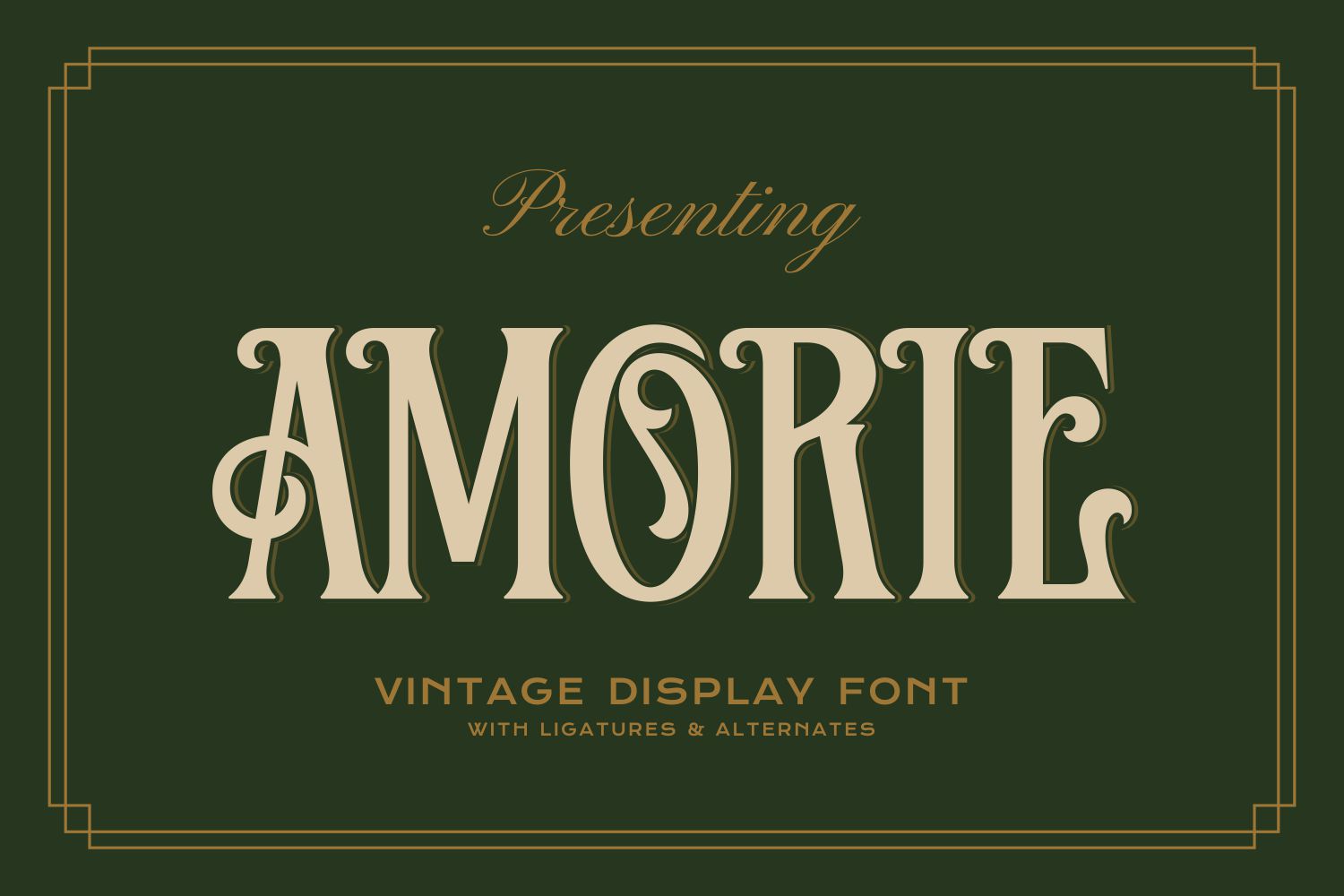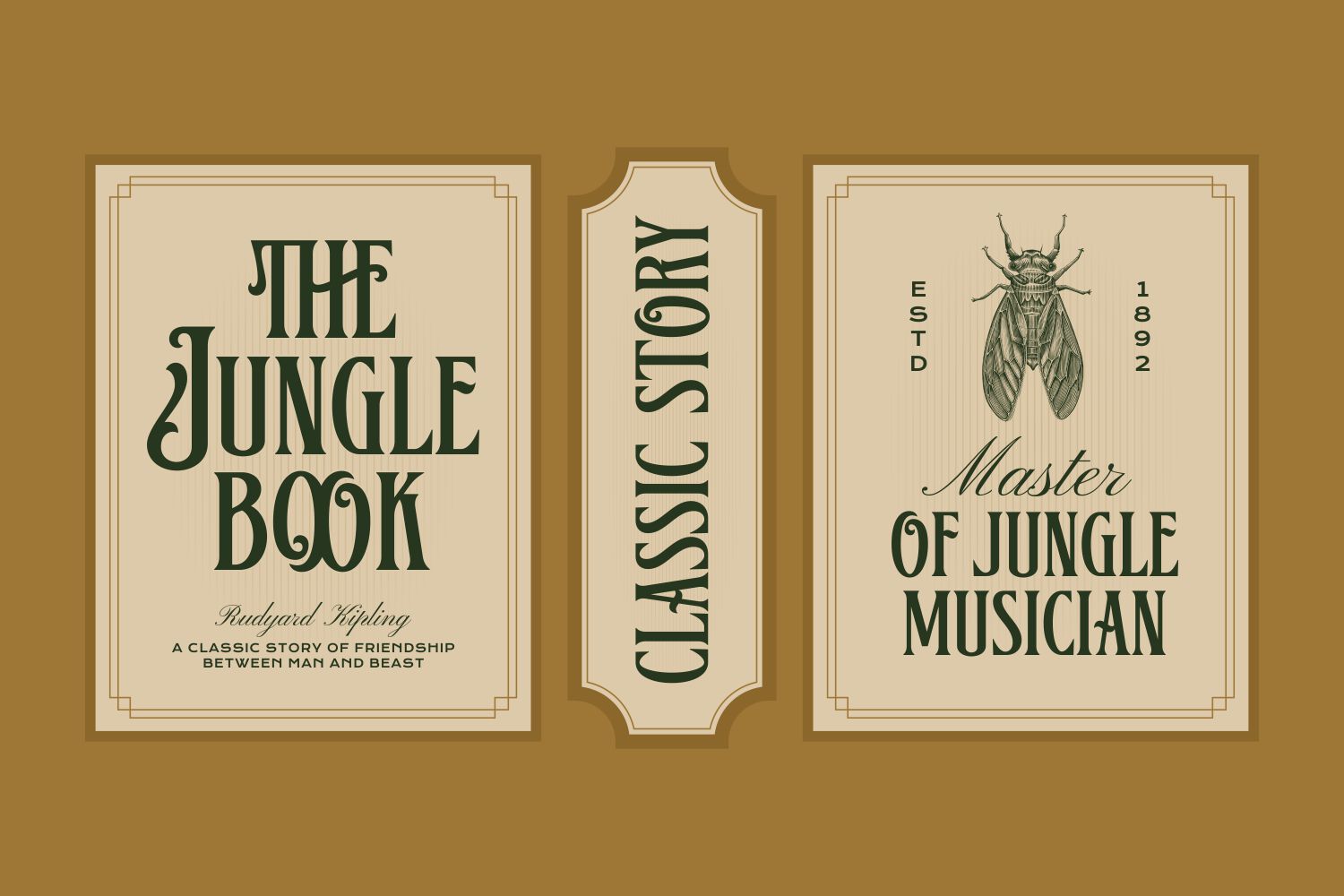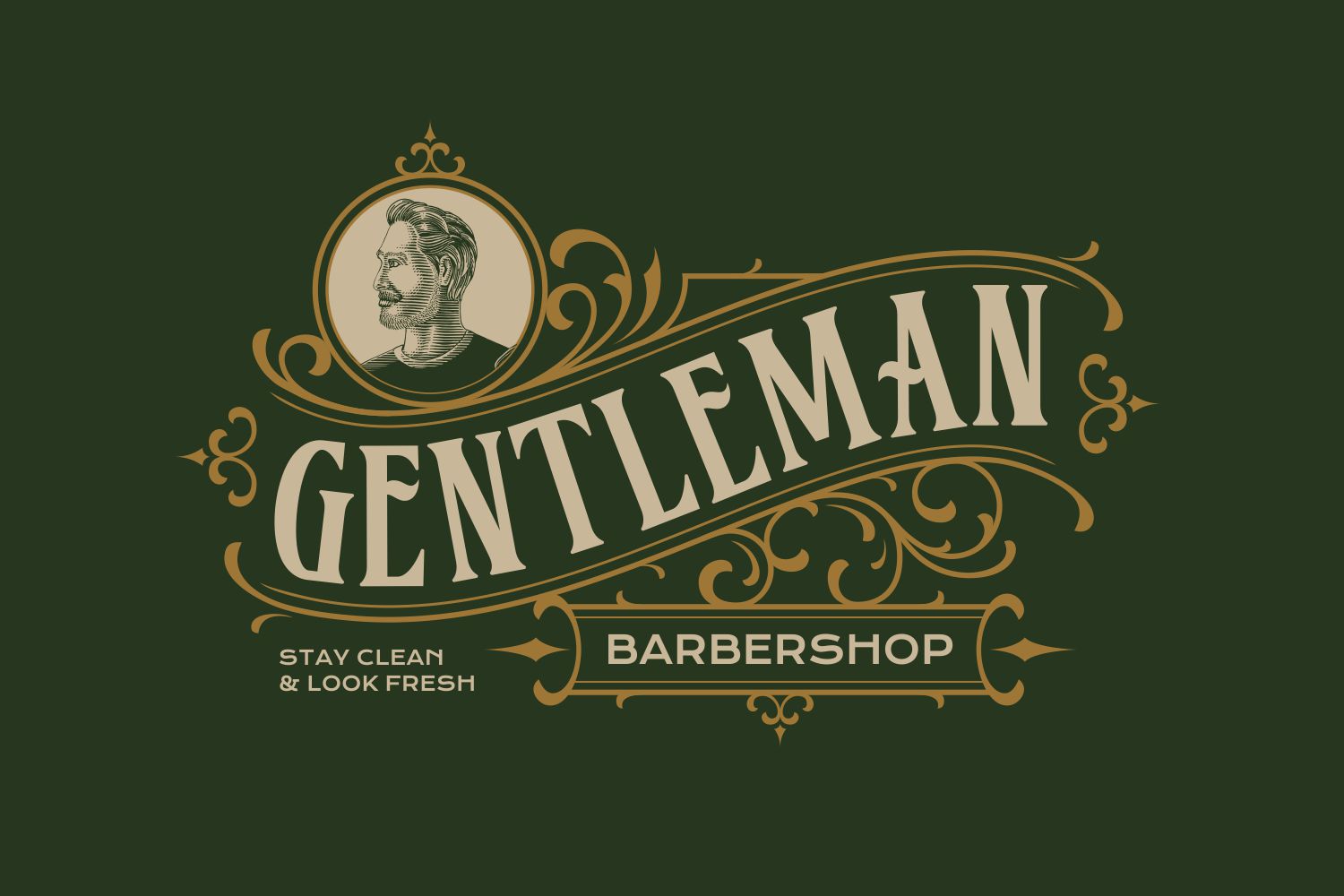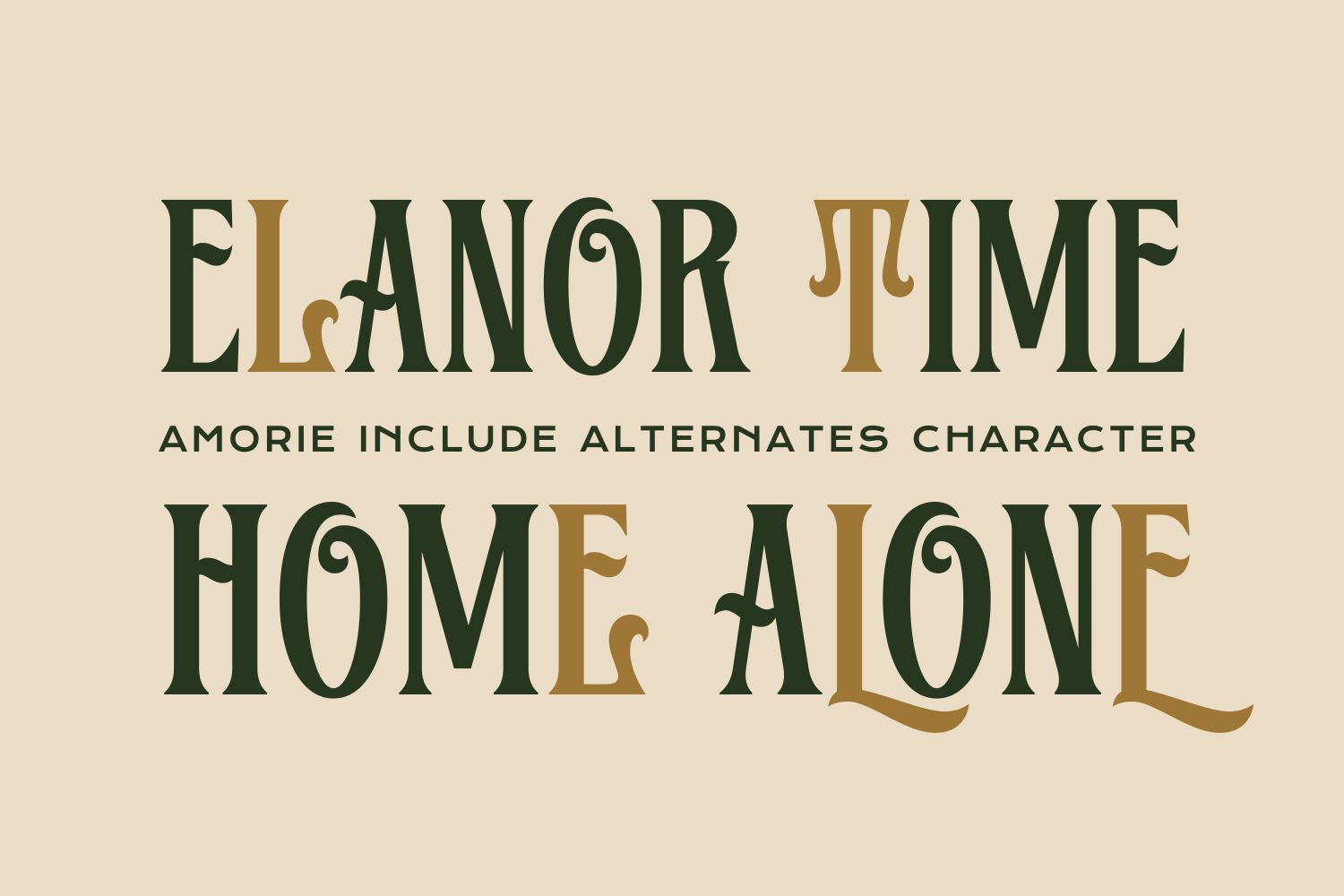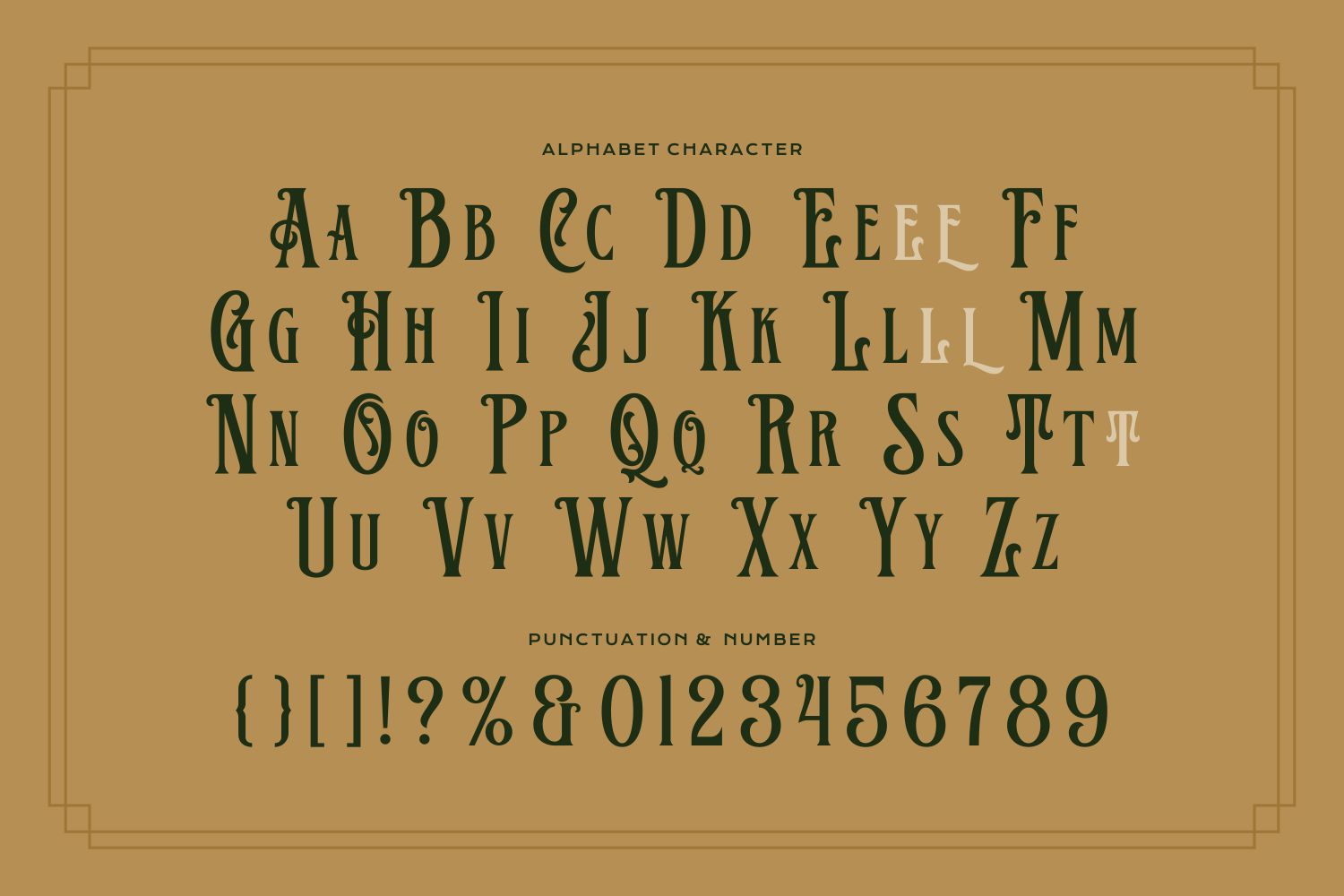
Amorie
Amorie is a refined vintage display font that combines timeless elegance with decorative flair. Its tall, narrow letterforms and stylish ligatures evoke the charm of classic book covers, vintage signage, and historical editorial layouts. Each character is carefully designed to balance legibility with aesthetic richness, making it a perfect choice for branding, posters, and editorial titles that aim to convey both tradition and sophistication.
Packed with alternate characters and unique glyphs, Amorie offers designers a versatile typographic toolset. Whether used in logos, product labels, barbershop signs, or book covers, this font brings a distinguished character to any project. With its nostalgic tone and modern functionality, Amorie stands out in both digital and print formats.